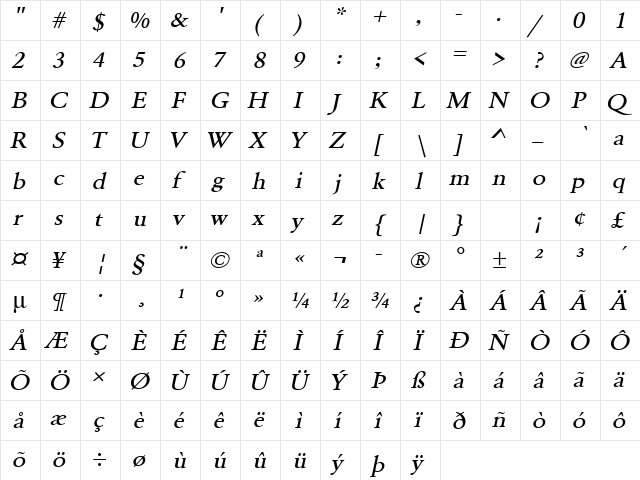
URWGaramondTMedExtWid Oblique
Design Context for URWGaramondTMedExtWid Typeface
URWGaramondTMedExtWid is a composed and adaptable typeface that performs quietly and consistently across a wide range of design contexts. Its italic angle brings a sense of urgency and motion to the letterforms.
Pro Tip: Try URWGaramondTMedExtWid for annotation and caption copy alongside an upright companion — the contrast in angle creates a dynamic but ordered typographic system.